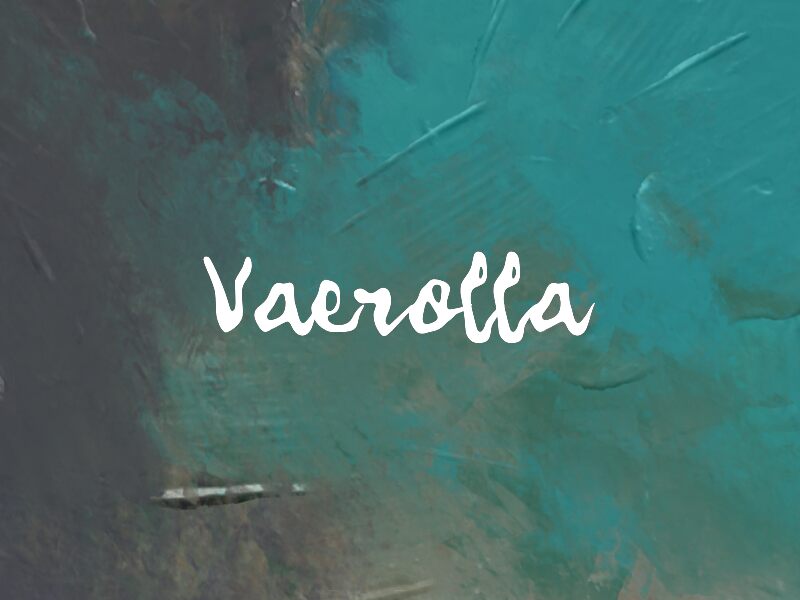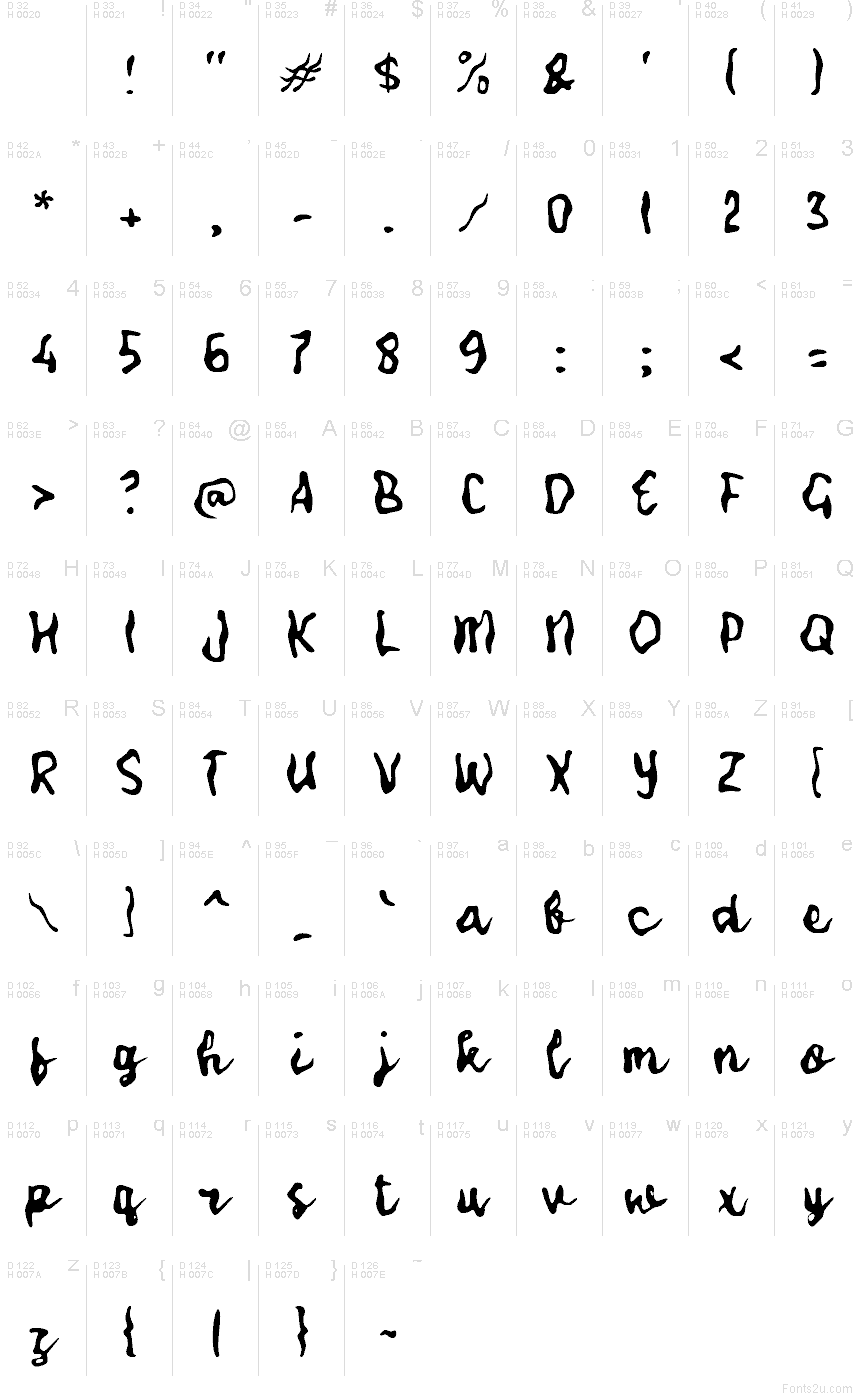
Vaerolla
Vaerolla font by wepfont.com is a free brush script typeface with a thick, inky texture that feels like it was painted in one bold, confident motion. The letters sway and loop with a slightly wild rhythm, as if the brush was dragging through wet paint, giving every word a visceral, hand-done energy. It’s expressive without being fussy, so your text feels spontaneous and alive rather than overly polished.
Using Vaerolla, this free font shines on bold logos, packaging, posters, album covers, social media graphics, and event titles where personality matters more than precision. The dense strokes hold up beautifully at larger sizes, making it a natural fit for headlines and statement phrases. Pair it with a clean sans serif in smaller text to let Vaerolla be the visual hook while keeping the rest of your design readable.